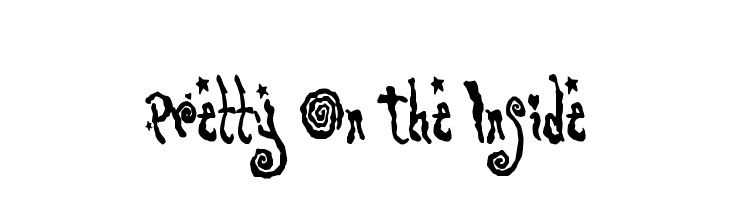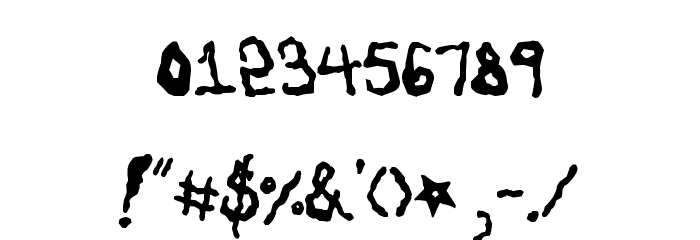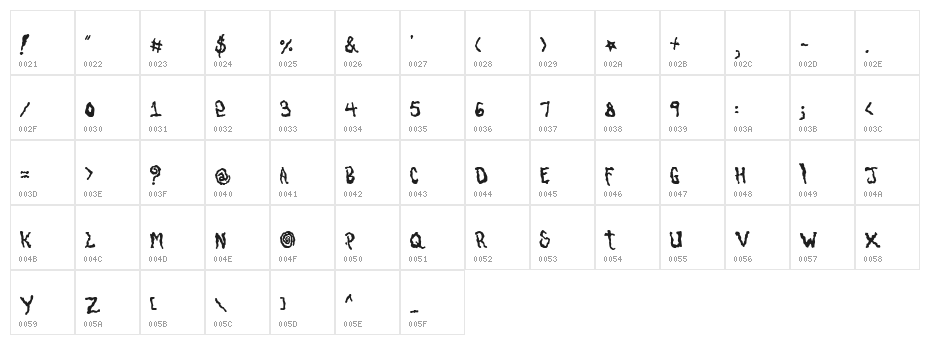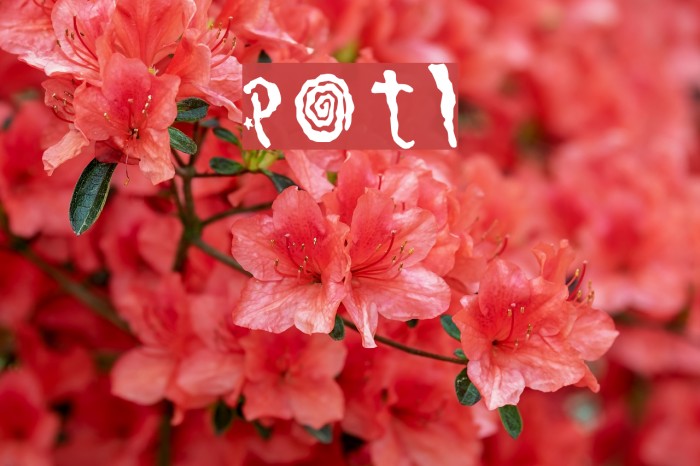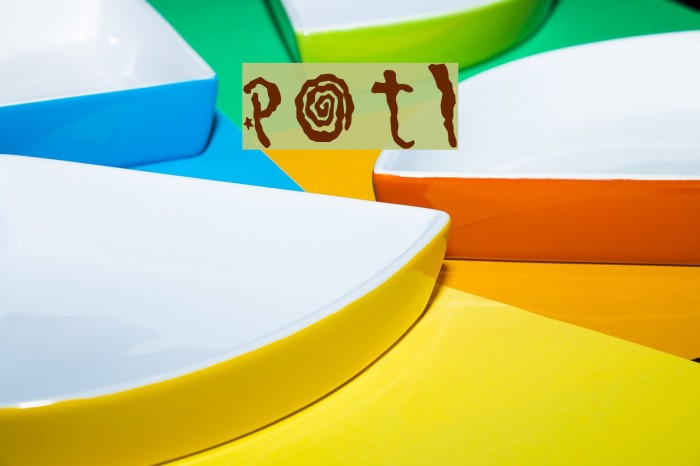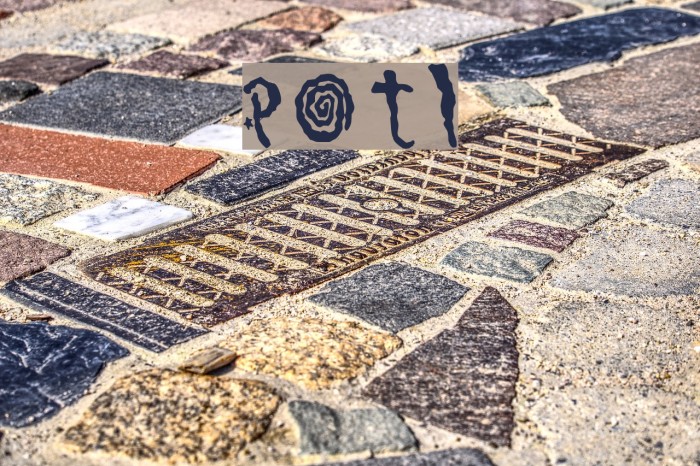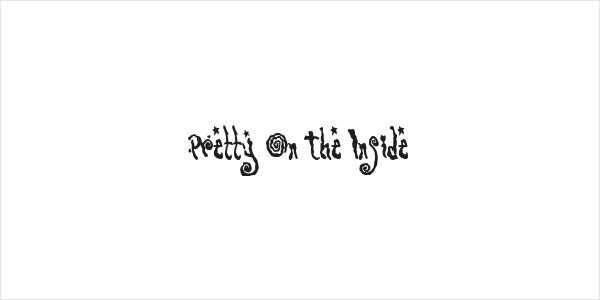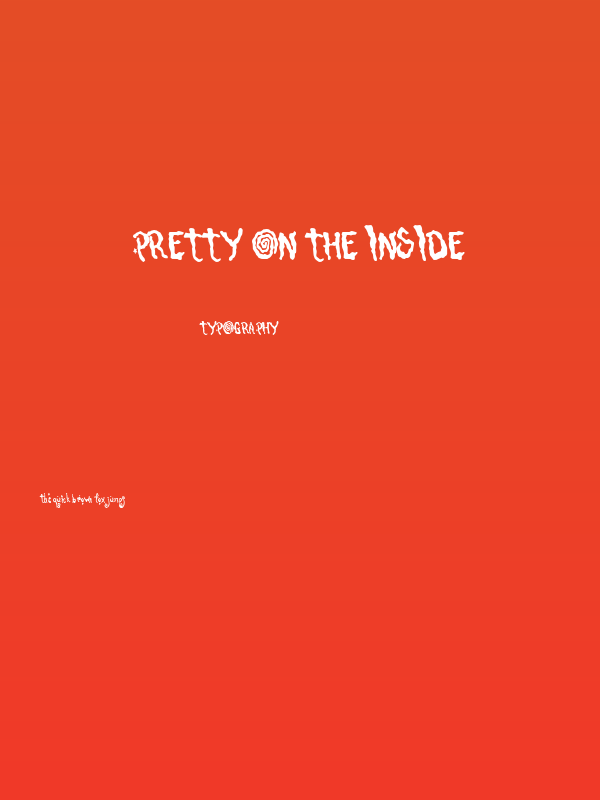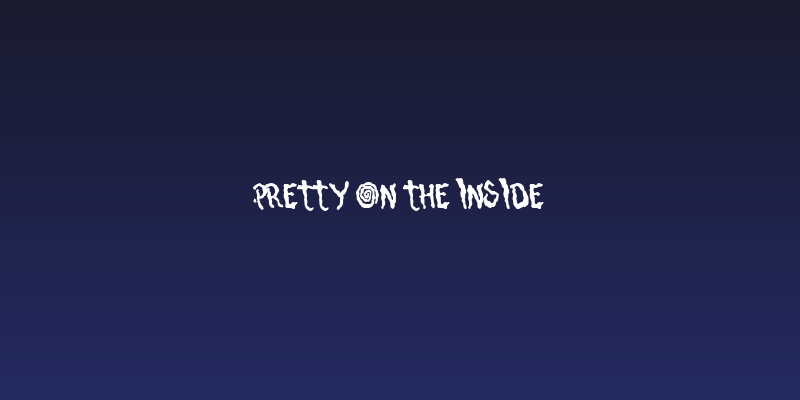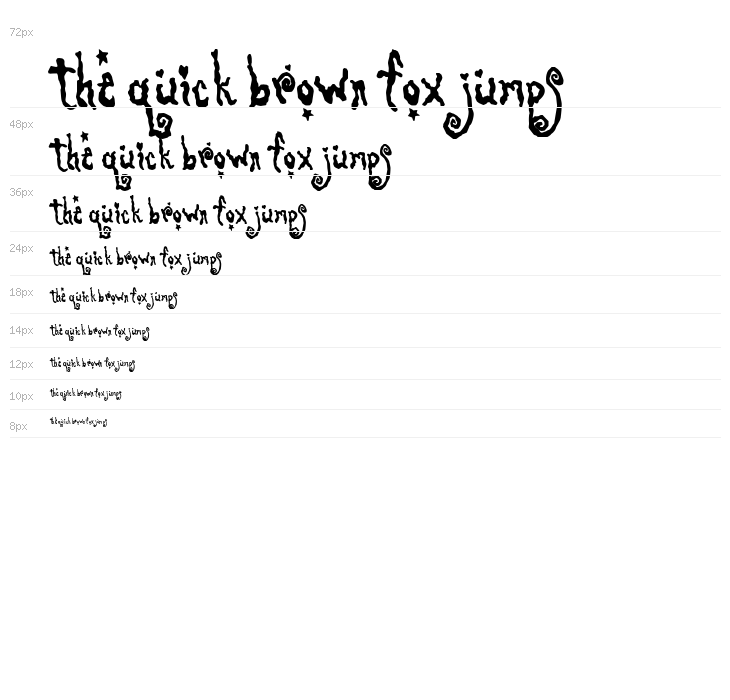
Pretty On The Inside Font
Pretty On The Inside Description
This font features a unique and artistic design with a hand-drawn appearance. The letters are irregular and whimsical, with varying stroke thicknesses that give it a playful and slightly chaotic feel. The uppercase letters have a bold presence, while the lowercase letters incorporate quirky elements like spirals and stars. The numbers maintain the same artistic style, ensuring consistency throughout. Special characters are creatively designed, adding to the font's overall charm. This font is perfect for projects that require a touch of creativity and individuality.
| Proposed Projects | Ideal for creative projects such as posters, album covers, children's books, and artistic branding. |